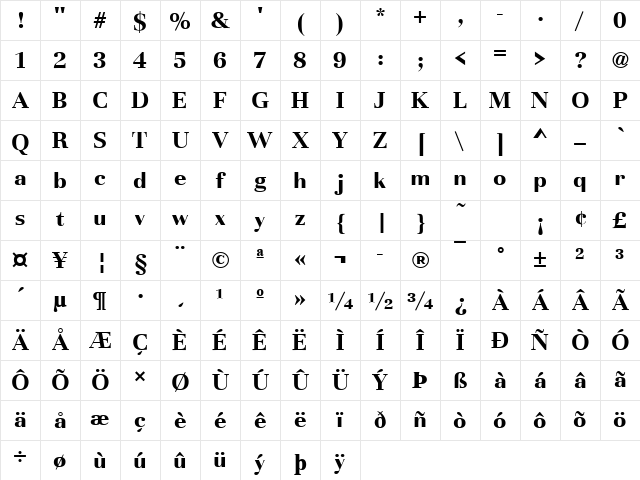
BasiliaT Bold
BasiliaT Family
BasiliaT Bold
Complete BasiliaT Bold glyph index. Displaying only characters natively supported by BasiliaT Bold font.
Design Context for BasiliaT
BasiliaT is a composed and adaptable typeface that performs quietly and consistently across a wide range of design contexts. Its bold stroke weight gives it real presence on the page.